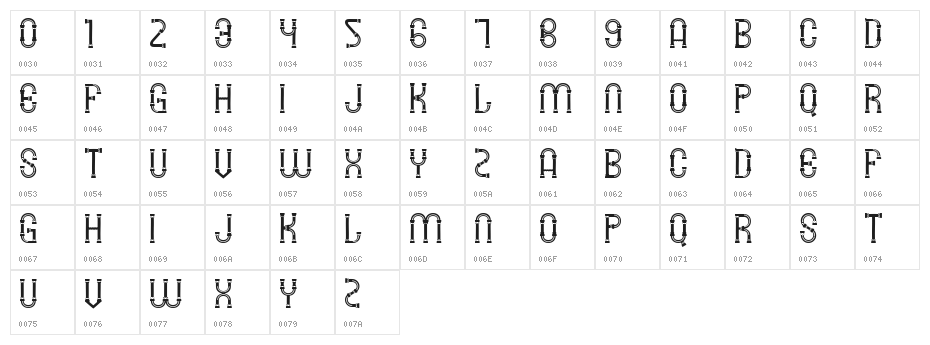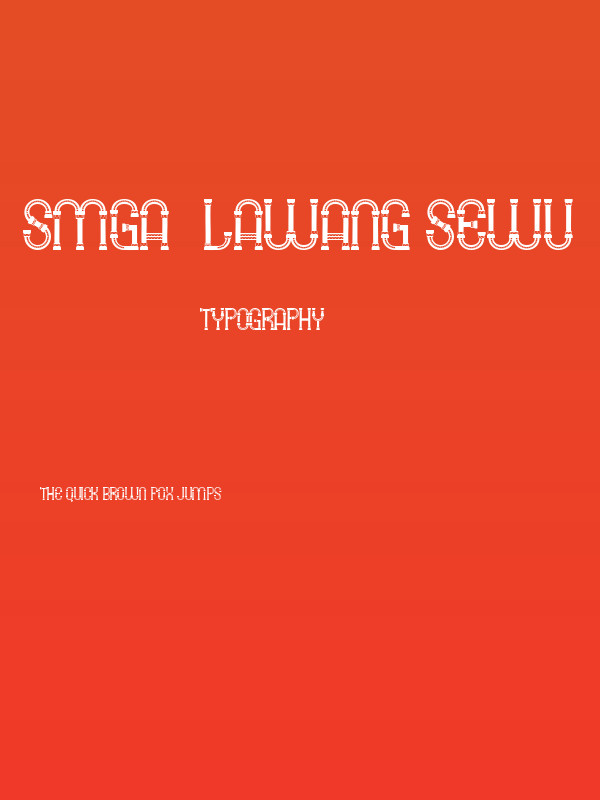
SMG_Lawang Sewu Font
SMG_Lawang Sewu Description
This font features a unique and decorative style, characterized by its intricate detailing and bold structure. Each character is designed with a series of parallel lines and arches, creating a visually striking appearance. The uppercase letters are particularly prominent, with a consistent height and width that adds to the font's uniformity. The numbers and special characters maintain the same decorative elements, ensuring a cohesive look across all characters. This font's distinct style makes it ideal for projects that require a strong visual impact.
Proposed ProjectsIdeal for branding, poster design, and any project that requires a strong visual statement.